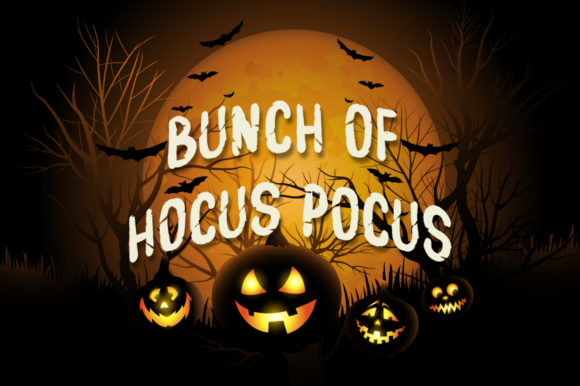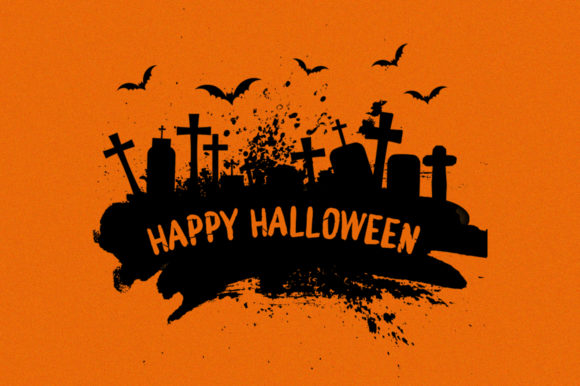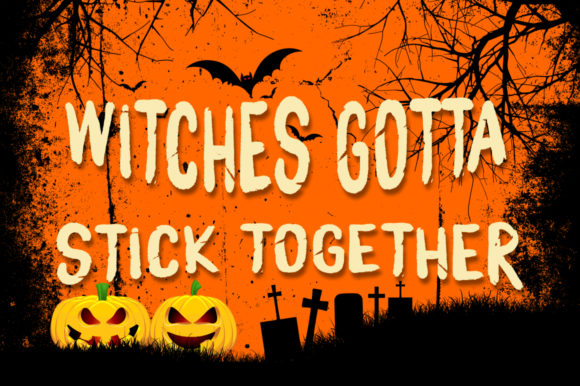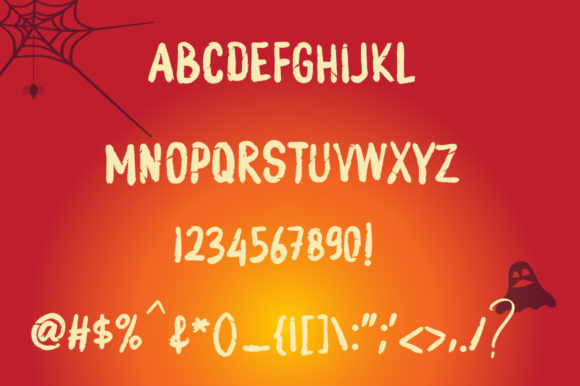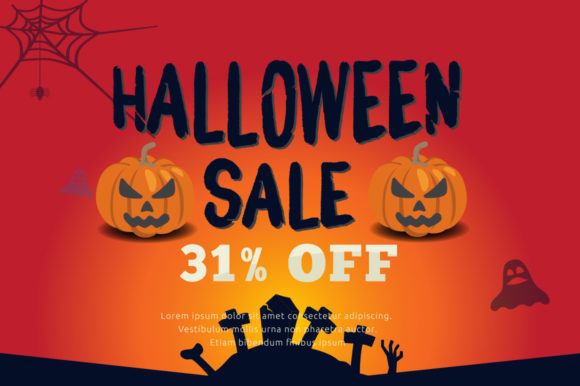
Introduction to Monster Boo Font
Remember the moment when you stumbled upon the perfect font for your creative project? The one that made your design pop and left everyone in awe? For many designers, that moment is what makes all the hard work worth it. And if you’re looking for a font that’s about to become your new obsession, we’ve got you covered.
Meet the Monster Boo Font, a rough display font that’s taking the design world by storm. With its completely different and timeless style, this font is perfect for creating unique and eye-catching designs that stand out from the crowd. Whether you’re a seasoned designer or just starting out, the Monster Boo Font is an invaluable resource that will elevate your designs to the next level.
Key Features of Monster Boo Font
- High-quality design resource ideal for creative projects, offering a unique and spooky aesthetic.
- Unique characteristics include bold, gothic-inspired lettering and intricate details, making it perfect for Halloween-themed designs.
Honest Review: Monster Boo Font
I recently stumbled upon the Monster Boo Font, and I must say it’s been a game-changer for my creative projects. This high-quality font is a fantastic addition to any design resource, and I love how versatile it is.
- High-quality design: The Monster Boo Font is well-designed, with clear and readable letters that make it perfect for various creative projects.
- Perfect for spooky designs: The Monster Boo Font is ideal for Halloween-themed projects, but it can also be used in other creative projects where a spooky vibe is needed.
One limitation I’ve noticed is that the font might not be suitable for corporate or professional designs, as it has a playful and spooky vibe. However, for creative projects or personal designs, it’s a fantastic choice.
Overall, I’m impressed with the Monster Boo Font, and I think it’s a great addition to any designer’s toolkit. Its high-quality design, transparent background, and free download make it a fantastic resource for creative projects.
Tips for Getting the Most Out of Monster Boo Font
For a creative project, consider using the Monster Boo Font with a transparent background to create a spooky or eerie effect. You can also experiment with different font sizes and colors to add depth and interest to your design.
The Monster Boo Font is perfect for Halloween-themed designs, horror movie posters, and other spooky or supernatural projects. It’s also great for adding a touch of whimsy and fun to your designs.